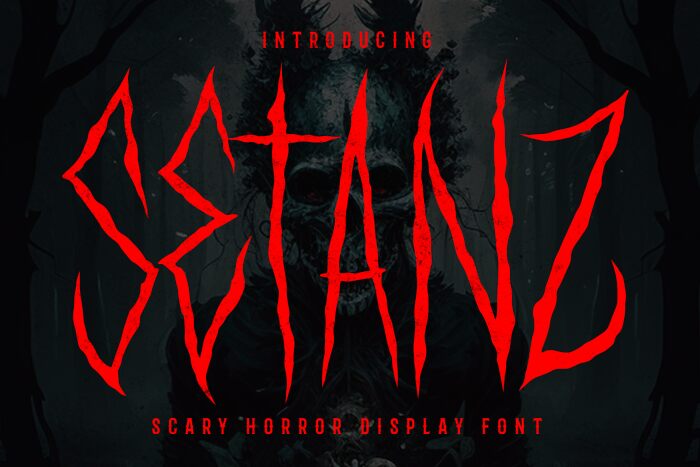
Setanz font by Fondaystudio astonishes with its eccentric letter characters that are characterized by sharp, jagged, and chaotic angles. This free scary display font is meant to make the hairs rise on your back and to install fear in those who dare to venture into your design world. Its artistic approach establishes dark gloomy combinations.
Use this condensed font for every time you want an aggression aftermath such as tattoos, games or book covers. Magician shows, circus motives, horror movie posters all become expressive with Setanz use. Aggressive apparel design projects and social media campaigns might find a fresh realization if they employ it properly.